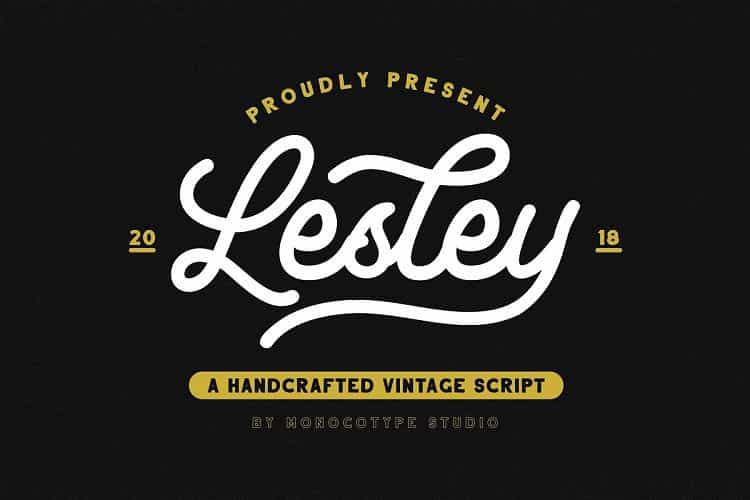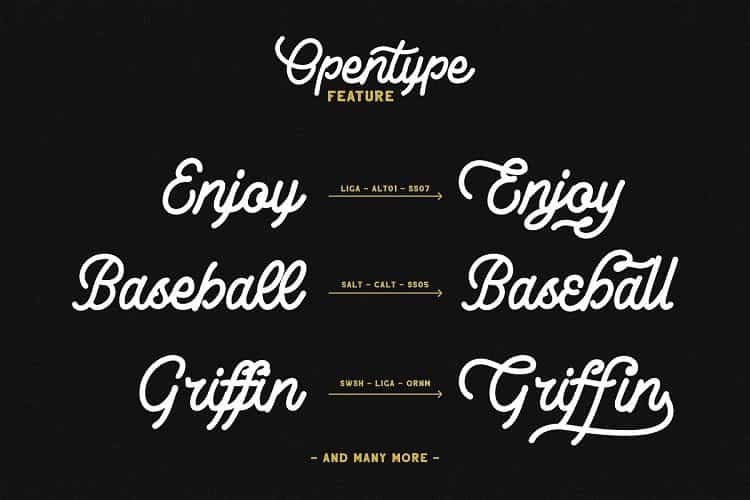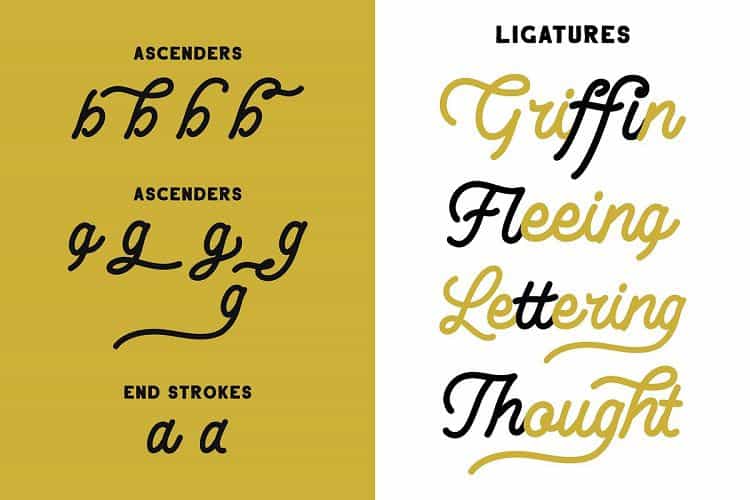
Introducing Lesley Font. Lesley Monoline Script Font is a High quality monoline script font with unique swashes dedicated to adventorous mood and vintge style design. Moreover, the font is included with Open Type features known as Stylistic Alternates or Swashes, Ligatures or Lets, Stylistic Set, Terminal Form, and Ornament that enables you to mix and match pairs of letters depending on the design. This does style audit well for the t-shirt and logo, labels, badges, posters and etc. , they can be used for vintage design.